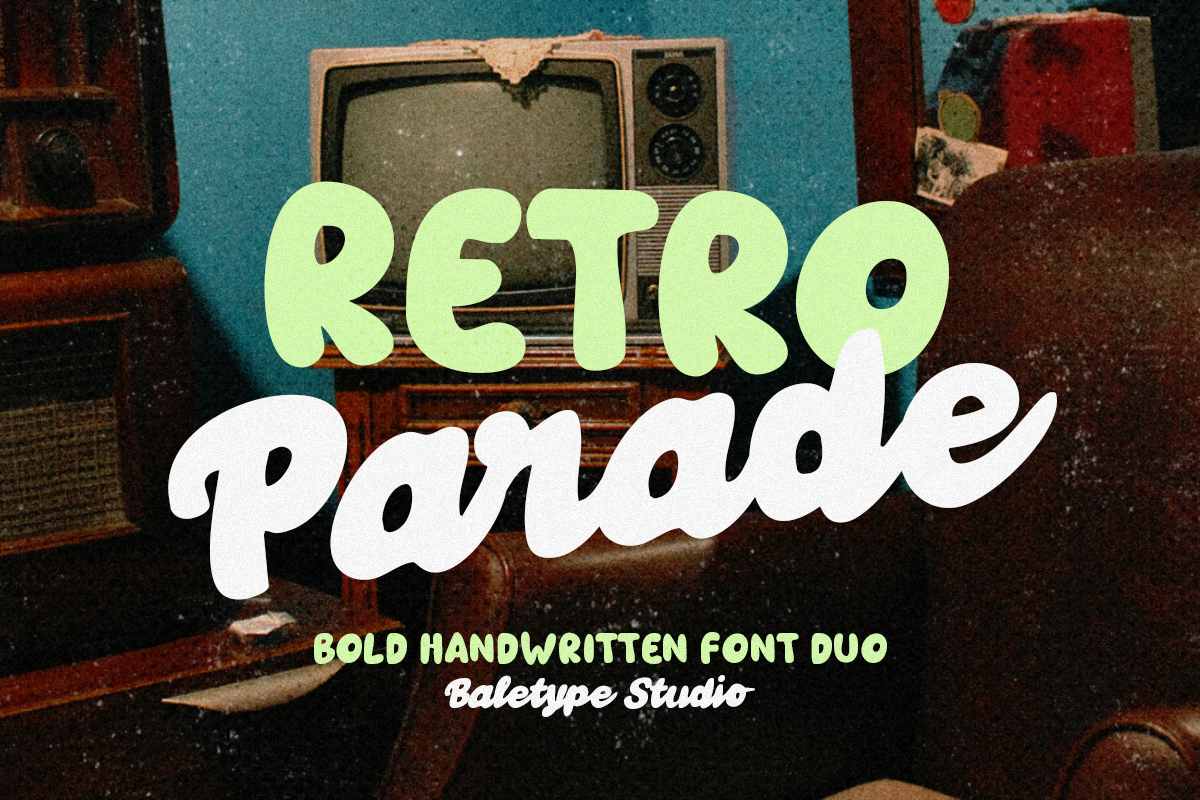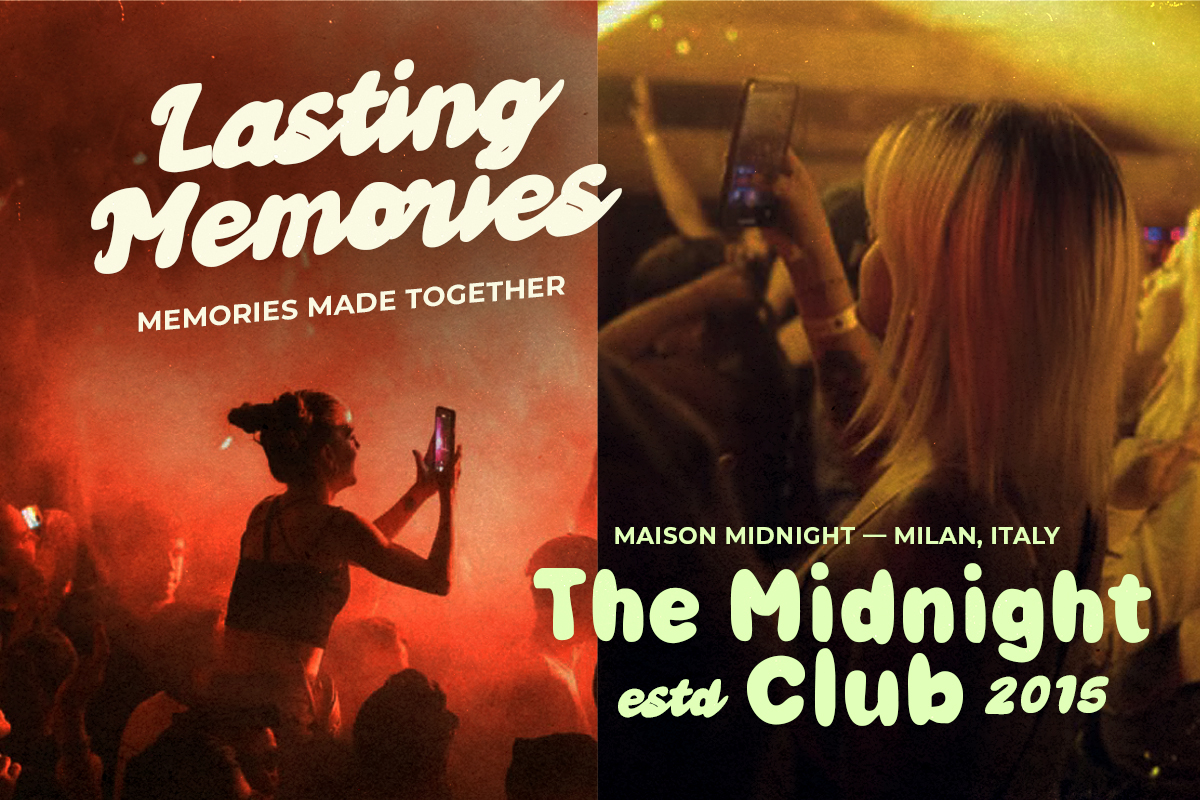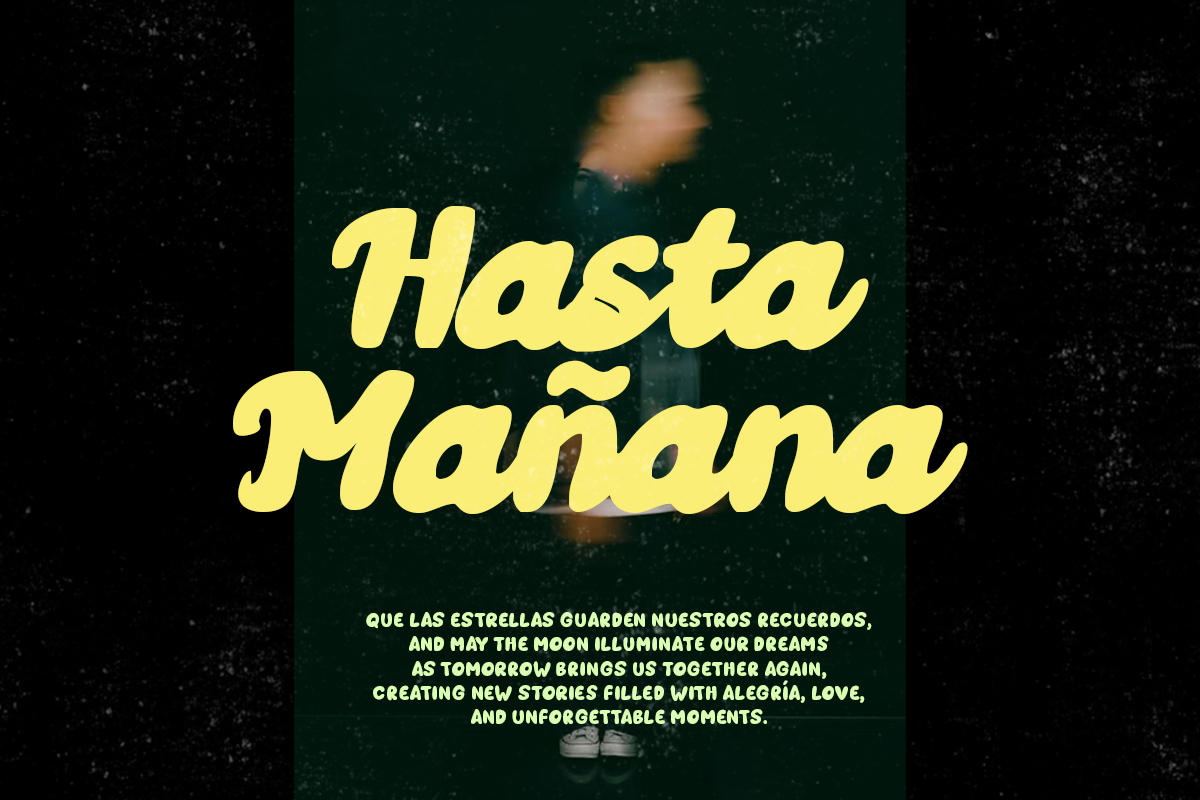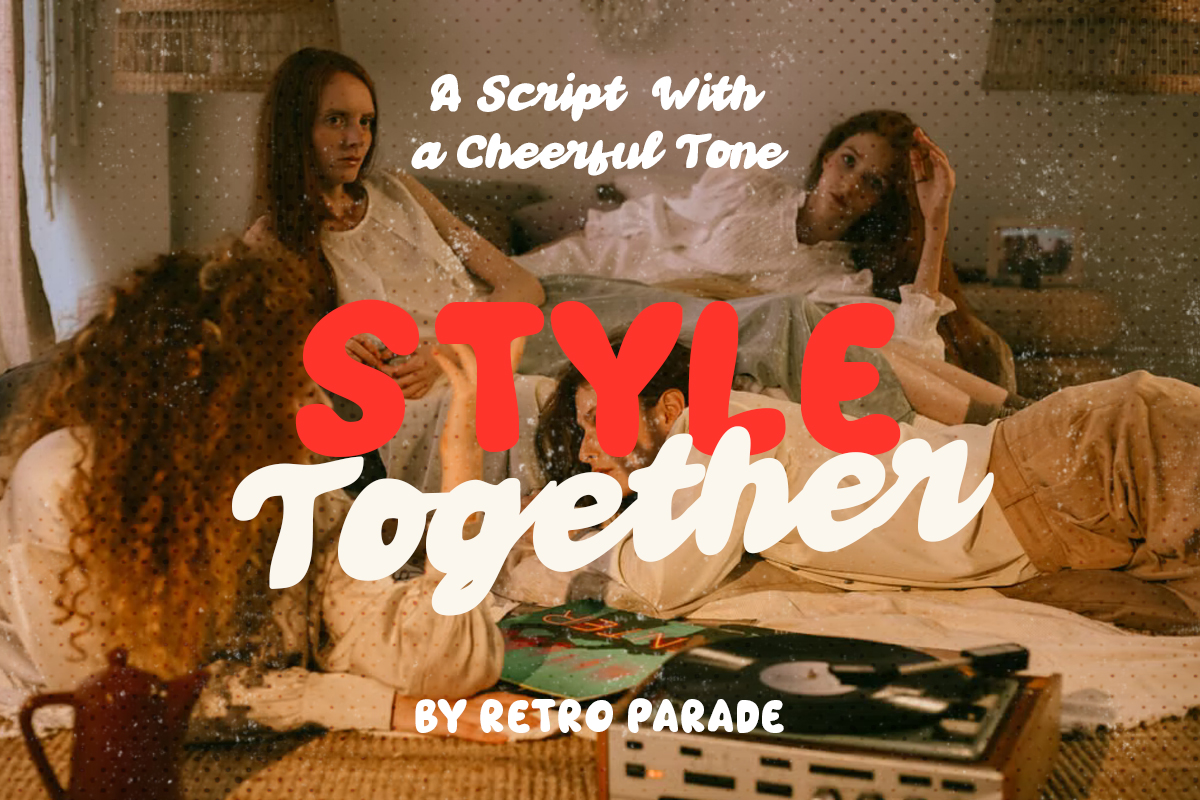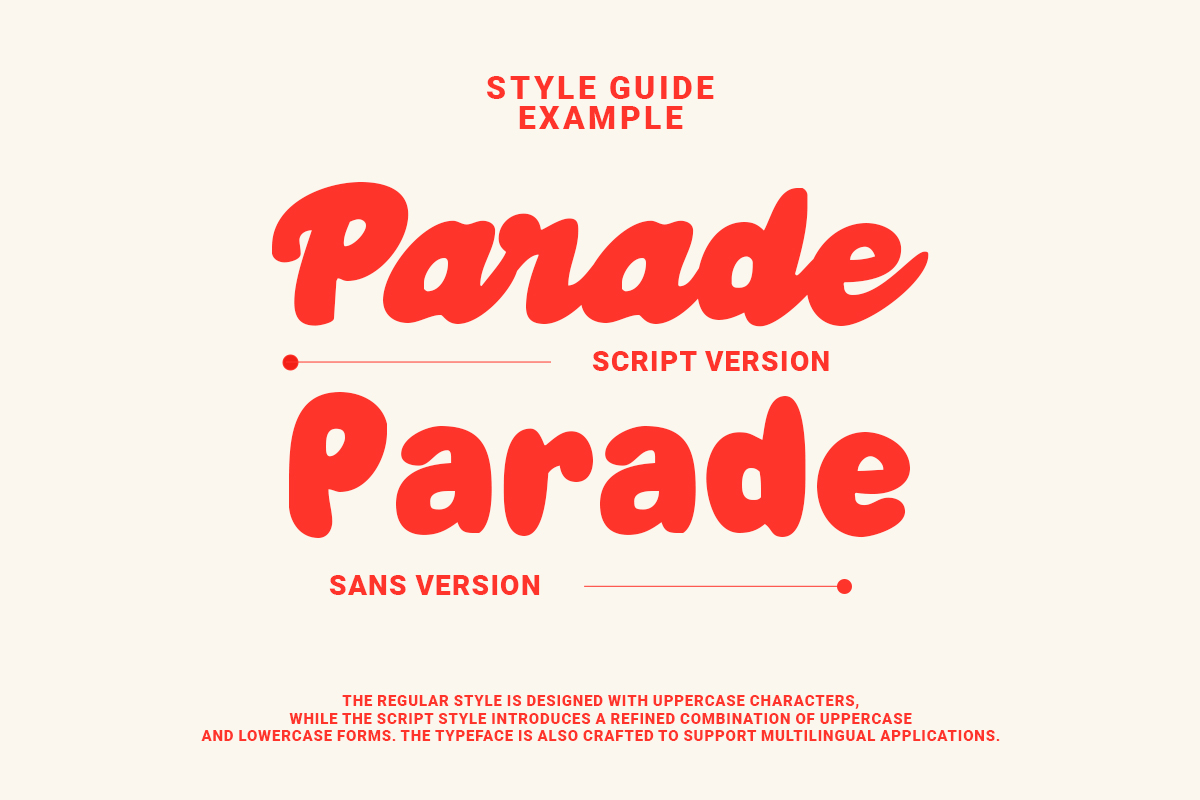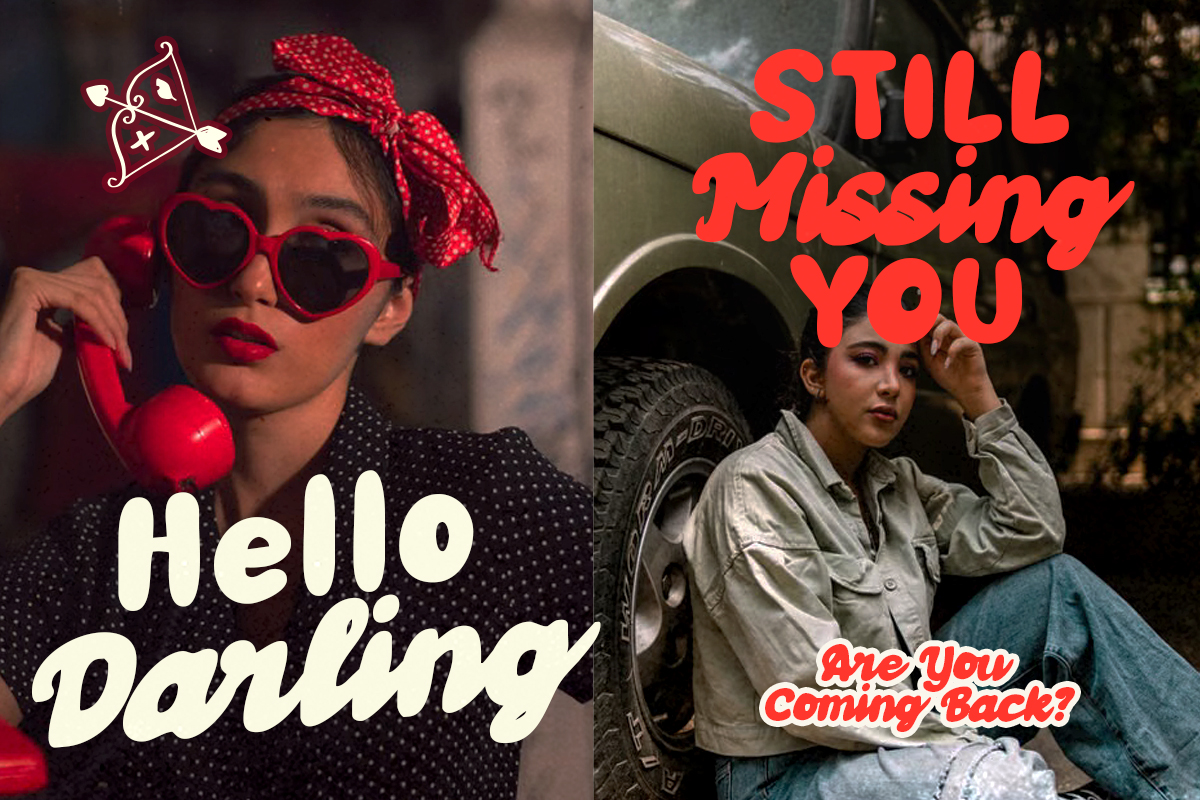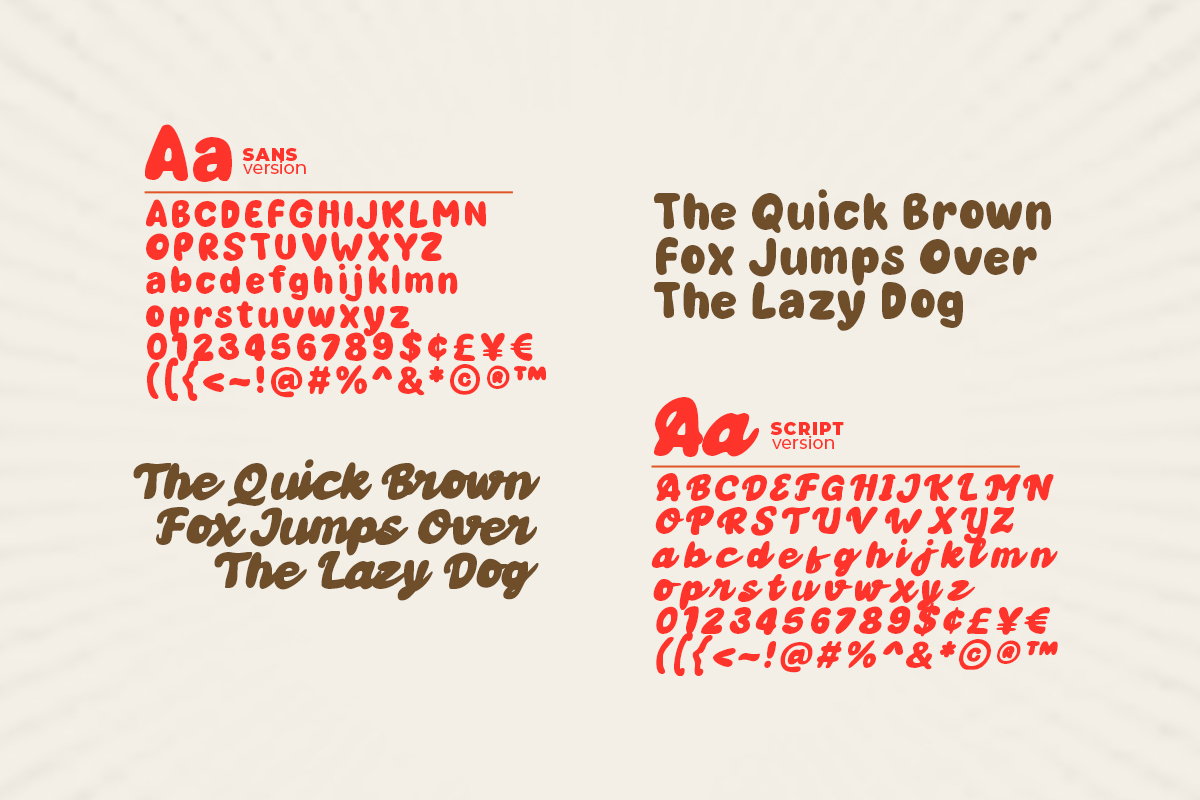
Retro ParadeĀ is a bold and groovy handwritten font duo. Including sans and script, you can use this font for any purposes such as poster, quote, logotype, branding, or any designs that require retro and vintage looks. With handwritten touch, this font will make your project looks more hand painted. Retro Parade also support multi language.
Retro Parade – Bold Handwritten Duo
Retro ParadeĀ is a bold and groovy handwritten font duo.